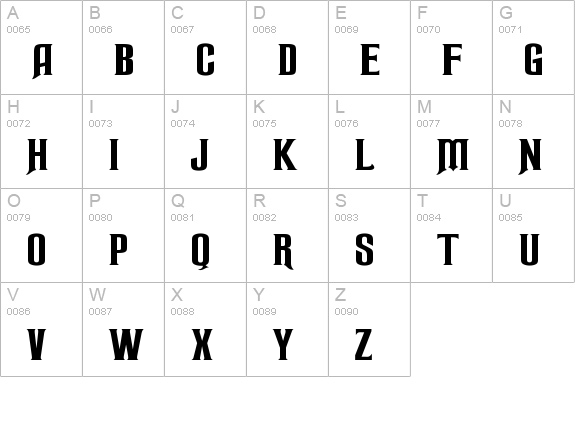
Nachtwache font is a beautifully crafted typeface that exudes elegance and sophistication. Its sleek lines and modern design make it perfect for a wide range of projects, from branding to editorial design. The font offers a unique blend of classic and contemporary elements, making it versatile and eye-catching. What sets Nachtwache font apart is that it is available for free download at FontsMarket.com. This means that you can easily access this high-quality font and use it in your projects without any cost. Whether you are a designer looking to add a touch of class to your work or a creative looking for a fresh new typeface, Nachtwache font is the perfect choice. Don't miss out on this fantastic opportunity to elevate your designs with this stunning font.